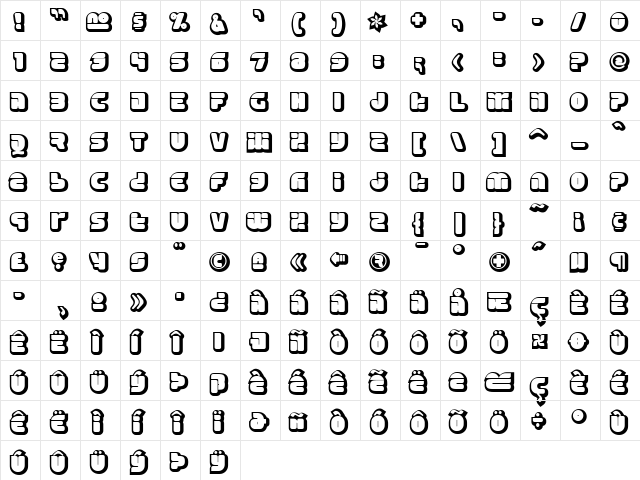
Eraser Regular
Design Context for Eraser Typeface
Eraser is a composed and adaptable typeface that performs quietly and consistently across a wide range of design contexts.